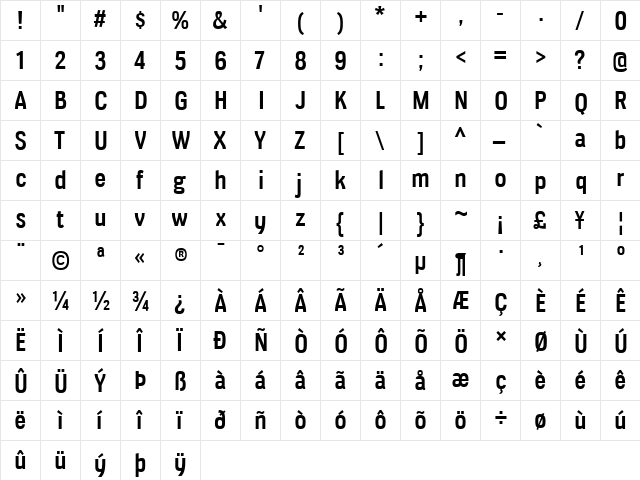
Veriox SemiBold Font Preview
Veriox SemiBold
Design Context for Veriox Typeface
Veriox is a composed and adaptable typeface that performs quietly and consistently across a wide range of design contexts. Its bold stroke weight gives it real presence on the page.